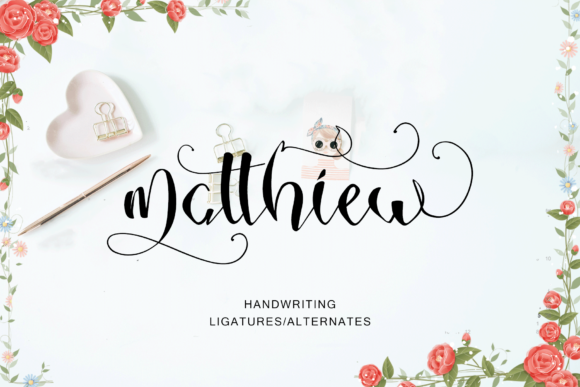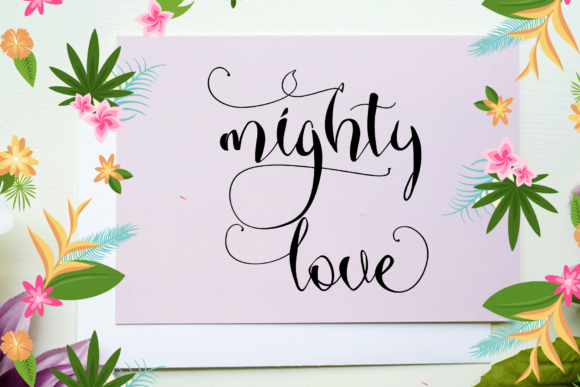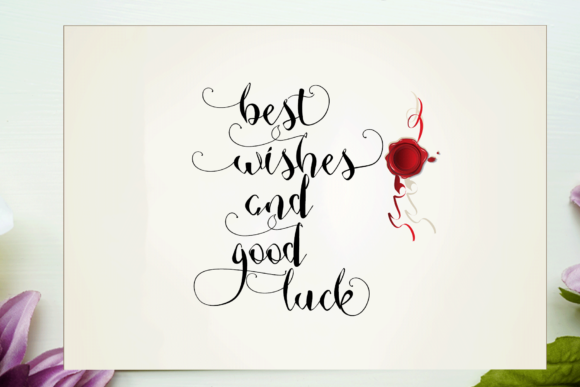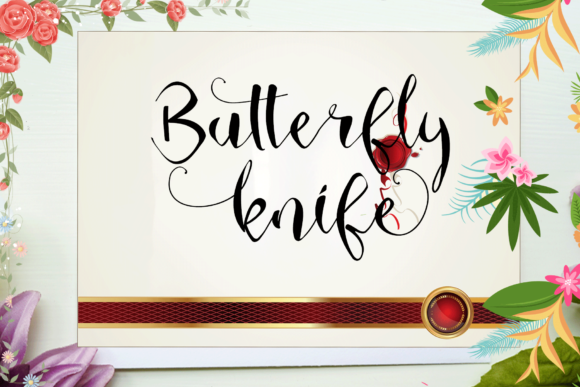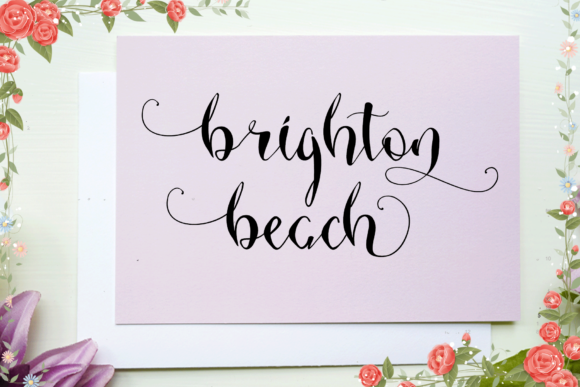
Matthiew Font
About Matthiew Font
Matthiew carries the classic look & feel of calligraphy into our modern day. This gorgeous reinterpretation of hand-lettering will make any design project stand out.